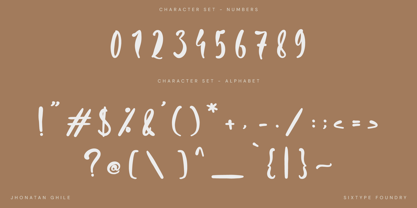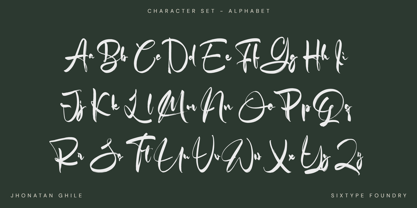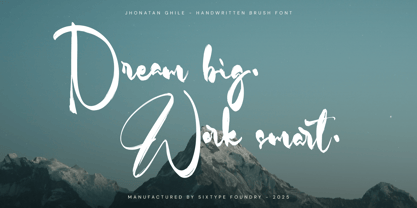
Jhonatan Ghile
by Sixtype Foundry
The Jhonatan Ghile Font Family was designed by Ilham Aji Saputro and published by Sixtype Foundry. Jhonatan Ghile contains 1 styles.
Jhonatan Ghile is a bold handwritten brush font with raw strokes and expressive personality. Designed for creatives who want their text to feel alive and handcrafted, this font is perfect for branding, posters, album covers, social media content, and editorial titles.
With its natural brush texture and dramatic flow, Jhonatan Ghile brings a sense of artistic freedom to any project. Whether you're creating eye-catching headlines or impactful quotes, this font delivers boldness with a human touch.
Designers: Ilham Aji Saputro
Publisher: Sixtype Foundry
Foundry: Sixtype Foundry
Design Owner: Sixtype Foundry
Sixtype Foundry, an independent studio based in Indonesia, delights in exploring diverse design styles and actively fosters creativity and resource exploration. Fueled by passion, we consistently push typographic boundaries, establishing ourselves as an innovative hub in the evolving design scene. Our goal is simple yet bold, to redefine the art of typeface design, inspiring designers to craft extraordinary visual stories.